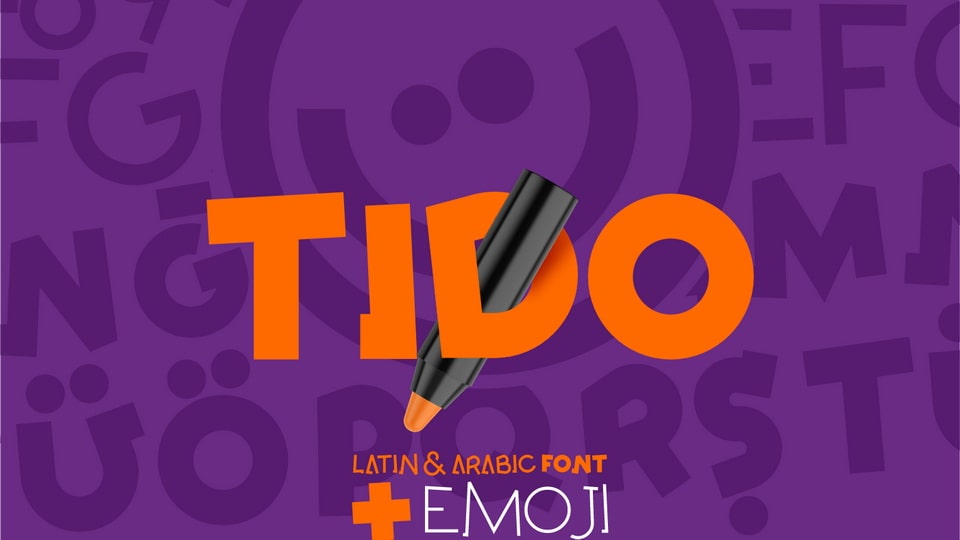
TIDO Font › Fontesk – Download Grátis
Download TIDO font, an original and fun display typeface with own unique style in expressive, perfectly made forms. TIDO is a font family that is ideal for display, text, print, branding, signage, especially game and cartoon design creation.